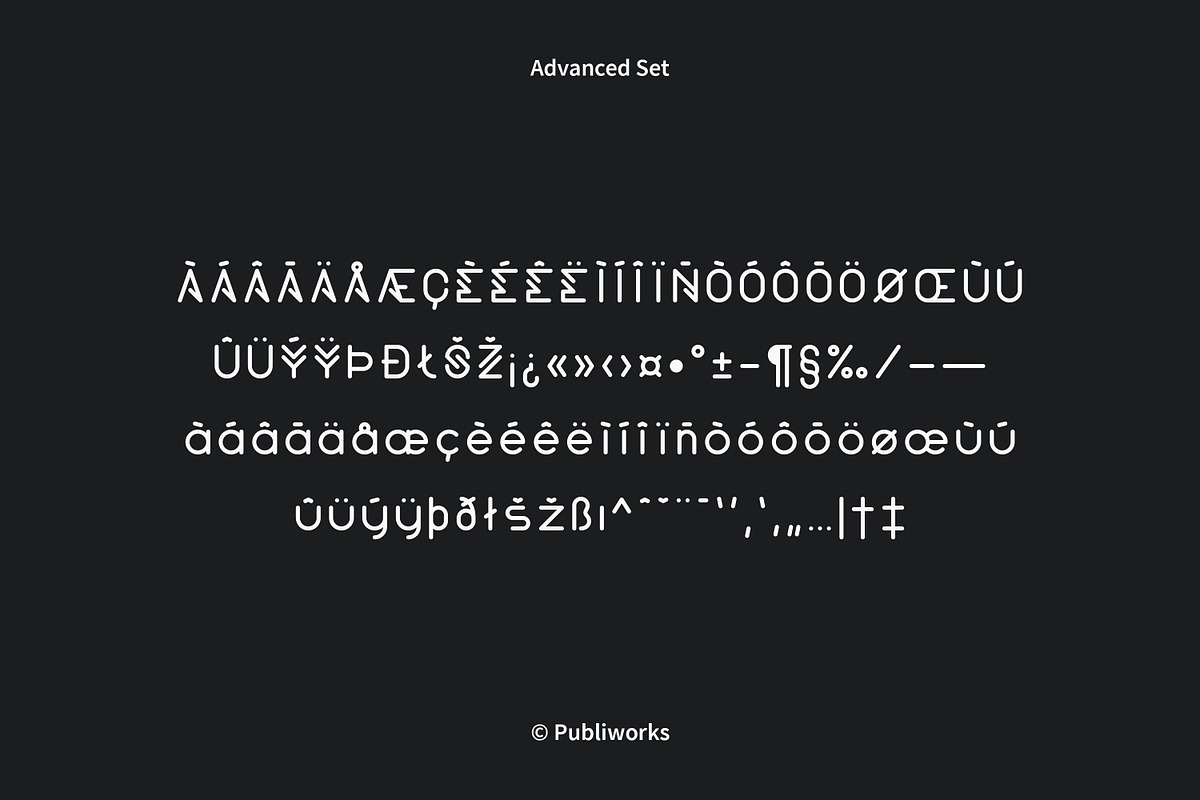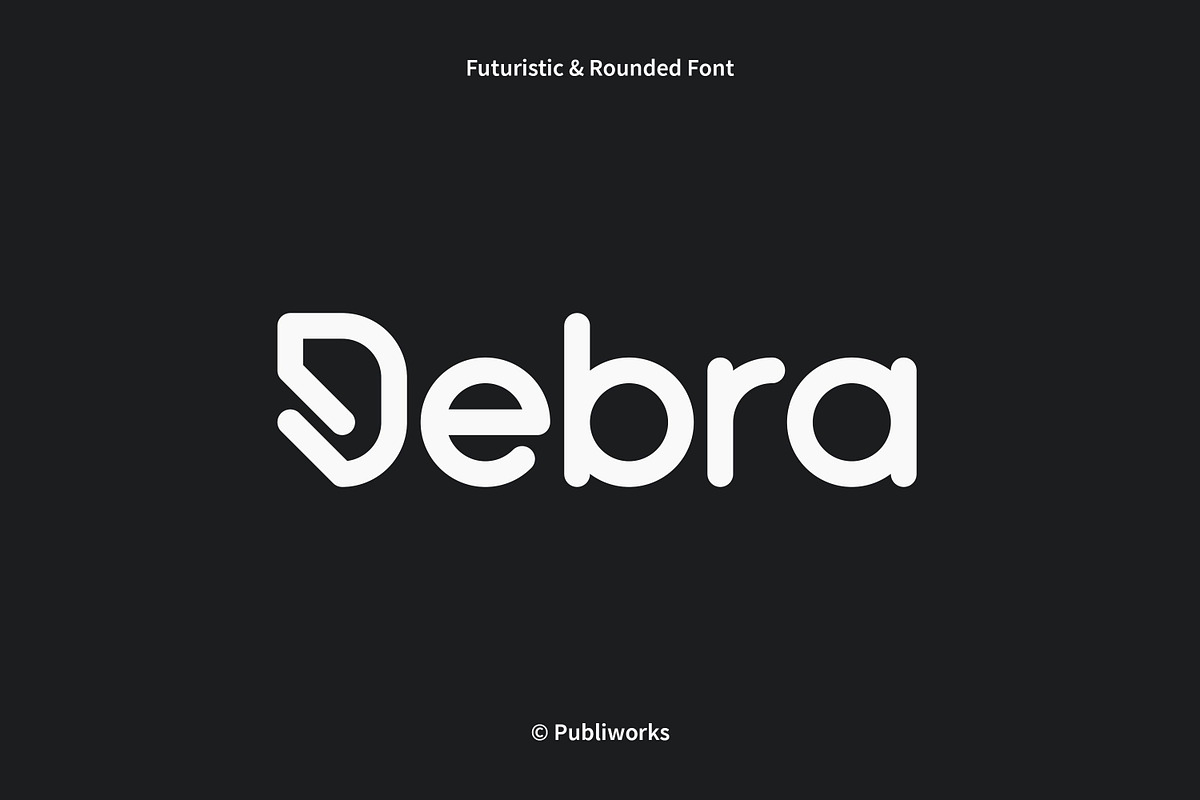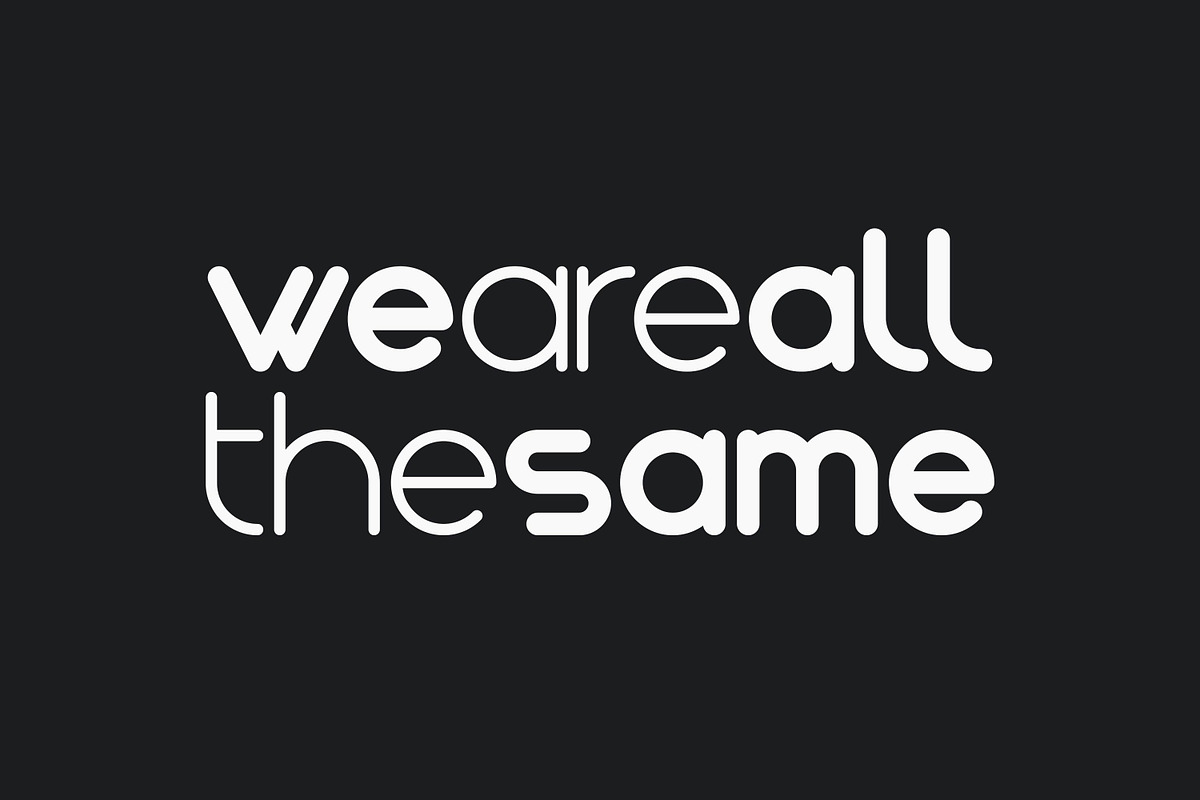
Debra - Futuristic & Rounded Font
3 Styles (Light, Regular, Bold)
209 Characters (Basic & Advanced Sets)
Lowercase & Uppercase
Debra - Futuristic & Rounded Font by Publiworks fits naturally into Branding, posters, packaging, typography.